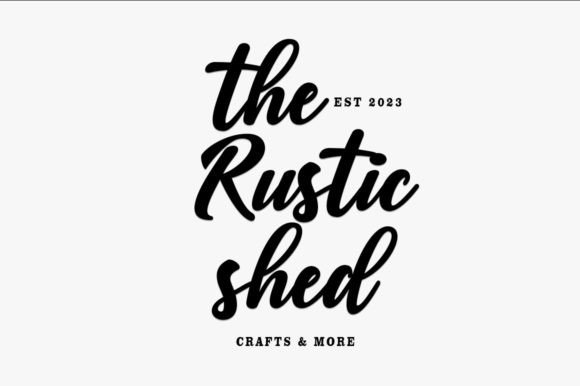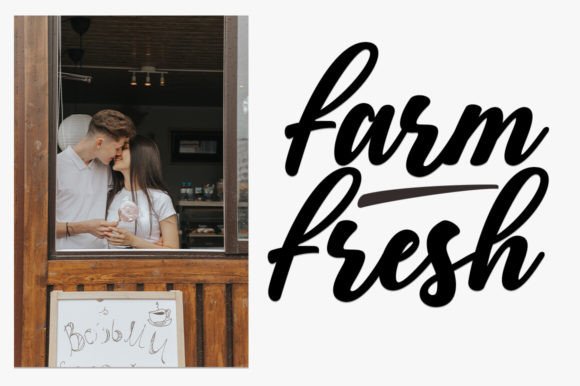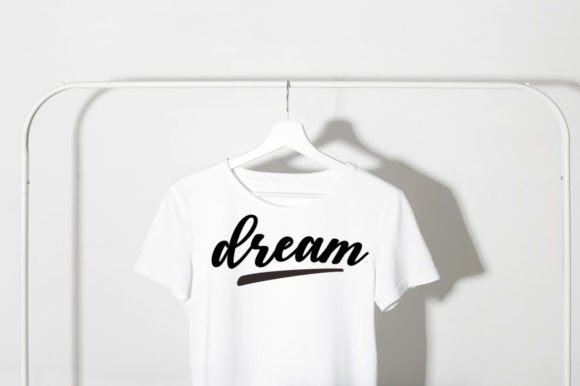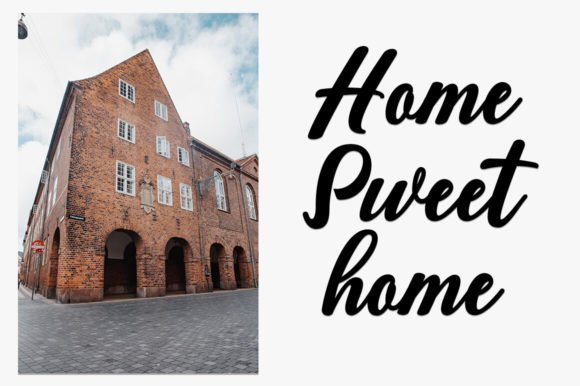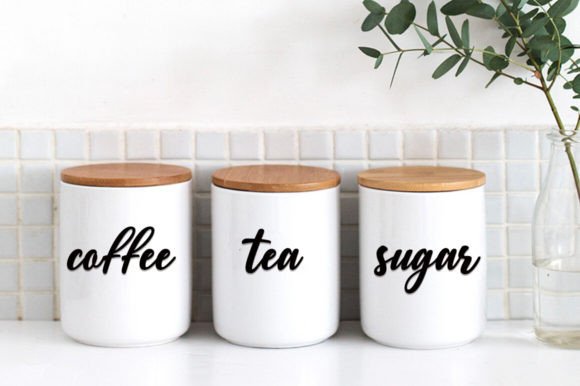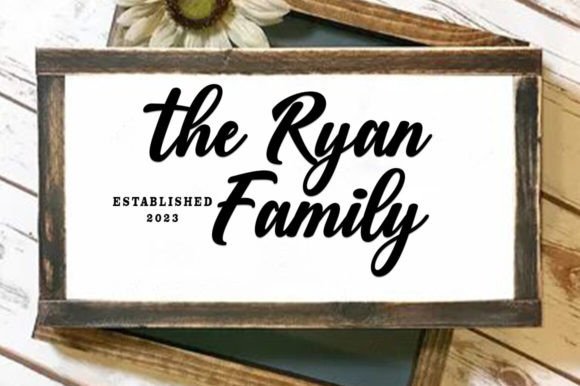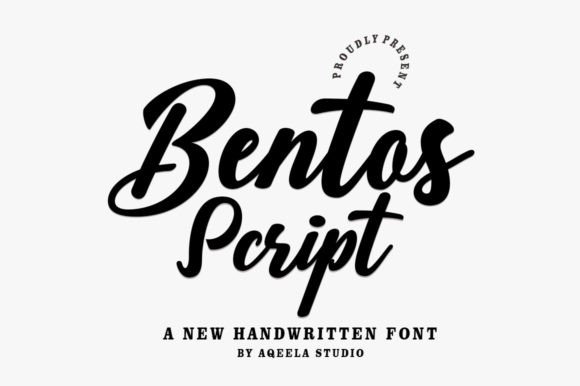
Bentos Script Font: Elevate Your Designs with a Touch of Elegance
In the world of typography, fonts play a crucial role in conveying the tone and personality of a brand. For designers and crafters seeking a unique and stylish handwritten font, Bentos Script is an excellent choice. This contemporary and organic script font is perfect for a wide range of branding projects, from logo creation to printing t-shirts and other distinctive products.
The Charm of Bentos Script Font
Bentos Script font boasts a distinctive, hand-crafted look that adds a touch of elegance to any design. Its organic feel makes it relatable and approachable, while its contemporary style ensures it remains fresh and modern. This font is ideal for designers who want to create a unique visual identity for their brand or product.
One of the standout features of Bentos Script font is its versatility. It can be used in a variety of settings, from digital platforms to print materials. Whether you’re creating a logo, business card, or promotional merchandise, this font is sure to make a lasting impression.
Ideal for Branding Projects
Bentos Script font is particularly well-suited for branding projects that require a personal touch. Its elegant and cursive style makes it perfect for:
- Logo creation: Add a touch of sophistication to your brand’s logo with Bentos Script font.
- T-shirt printing: Create unique and eye-catching designs for t-shirts and other apparel.
- Stationery and packaging: Elevate your brand’s stationery and packaging with a stylish and handwritten font.
Why Choose Bentos Script Font?
With so many fonts available, why choose Bentos Script font for your design projects? Here are a few compelling reasons:
- Unique style: Bentos Script font offers a distinctive and stylish look that sets it apart from more traditional fonts.
- Versatility: This font can be used in a wide range of design projects, from digital to print.
- Elegance and sophistication: Bentos Script font adds a touch of elegance and sophistication to any design.
Tips for Using Bentos Script Font
To get the most out of Bentos Script font, here are a few tips to keep in mind:
- Pair with complementary fonts: Combine Bentos Script font with complementary fonts to create visual interest and hierarchy.
- Experiment with colors: Try out different colors and textures to add depth and personality to your design.
- Keep it simple: Don’t overcomplicate your design – let the elegance of Bentos Script font shine through.
In conclusion, Bentos Script font is an excellent choice for designers and crafters seeking a unique and stylish handwritten font. Its contemporary and organic feel makes it perfect for a wide range of branding projects, from logo creation to printing t-shirts and other distinctive products. With its versatility, elegance, and sophistication, Bentos Script font is sure to elevate your designs and leave a lasting impression.